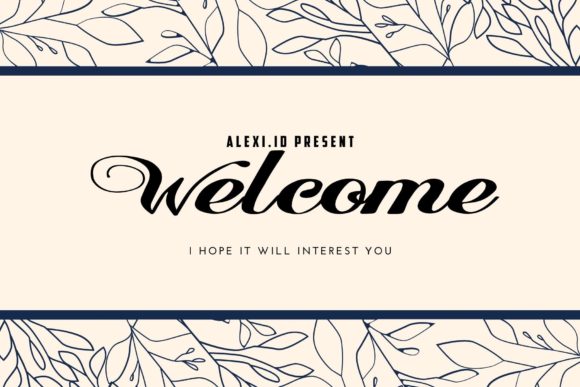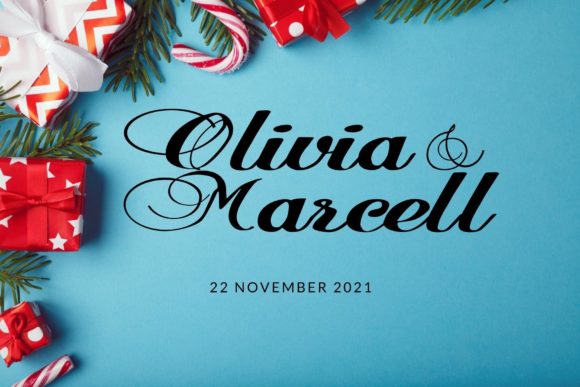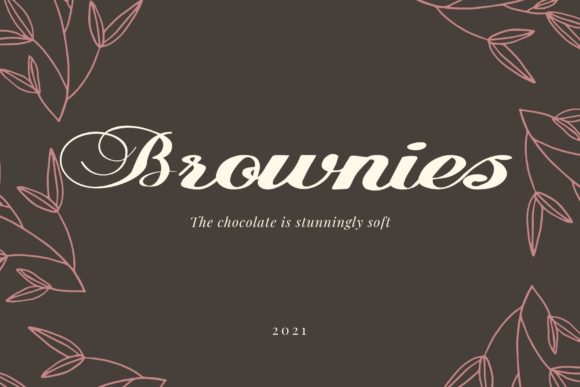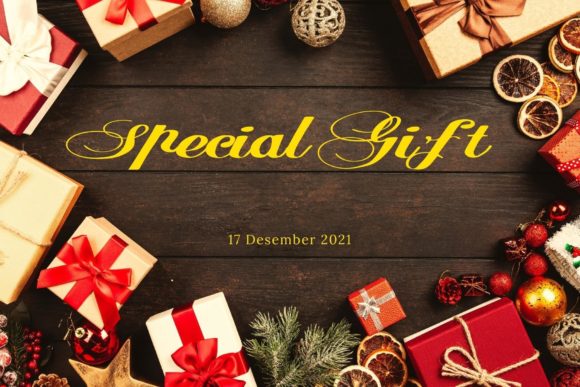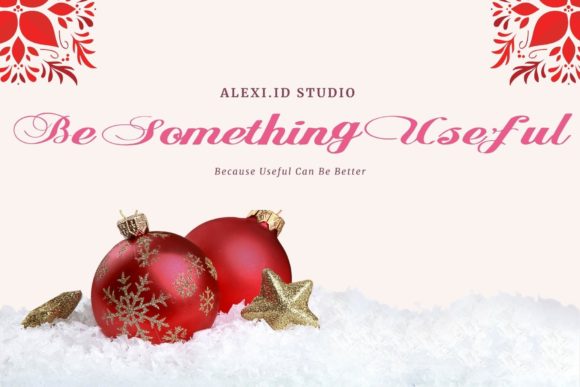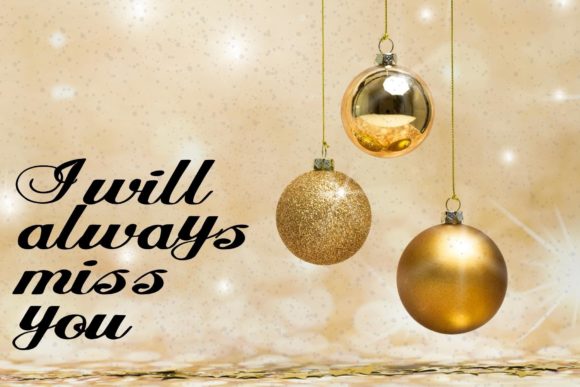
Introduction to Orkhidein Font Font
Fonts play a crucial role in design, and the Orkhidein Font font is a typeface that brings both character and versatility to any project. Whether you’re working on a branding project, a website, or a print design, the Orkhidein Font font offers a unique style that can elevate your work.
Orkhidein is a stylish and delicate script font.
Fall in love with its authentic feel and use it to create gorgeous wedding invitations, beautiful stationary art, eye-catching social media posts, and cute greeting cards .
Key Features of Orkhidein Font Font
Why Choose Orkhidein Font Font?
The Orkhidein Font font is more than just a typeface – it’s a design tool that helps you communicate your message with style and clarity. Its unique character set and versatile design make it suitable for a wide range of applications, from elegant invitations to bold headlines.
With its carefully crafted letterforms and balanced proportions, the Orkhidein Font font ensures readability and visual appeal across all mediums.
What makes Orkhidein Font font special?
The Orkhidein Font font stands out with its unique design, exceptional readability, and versatility across various design applications.